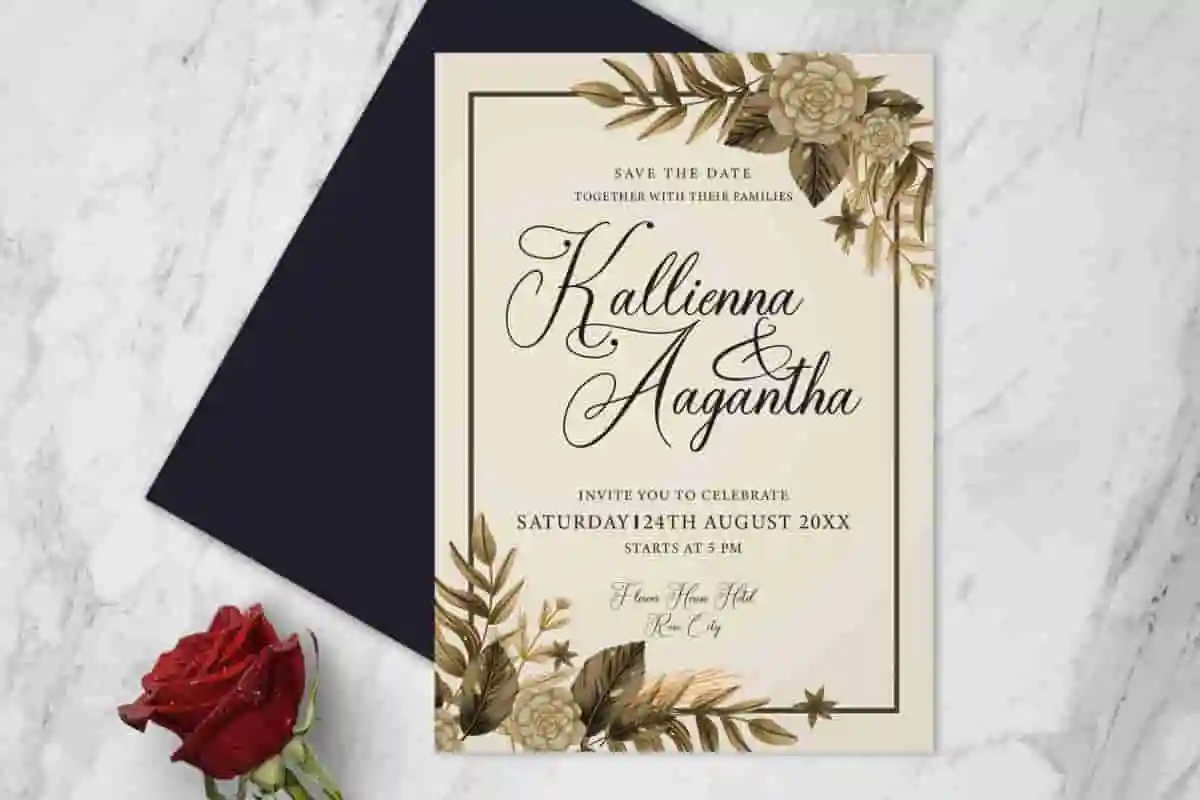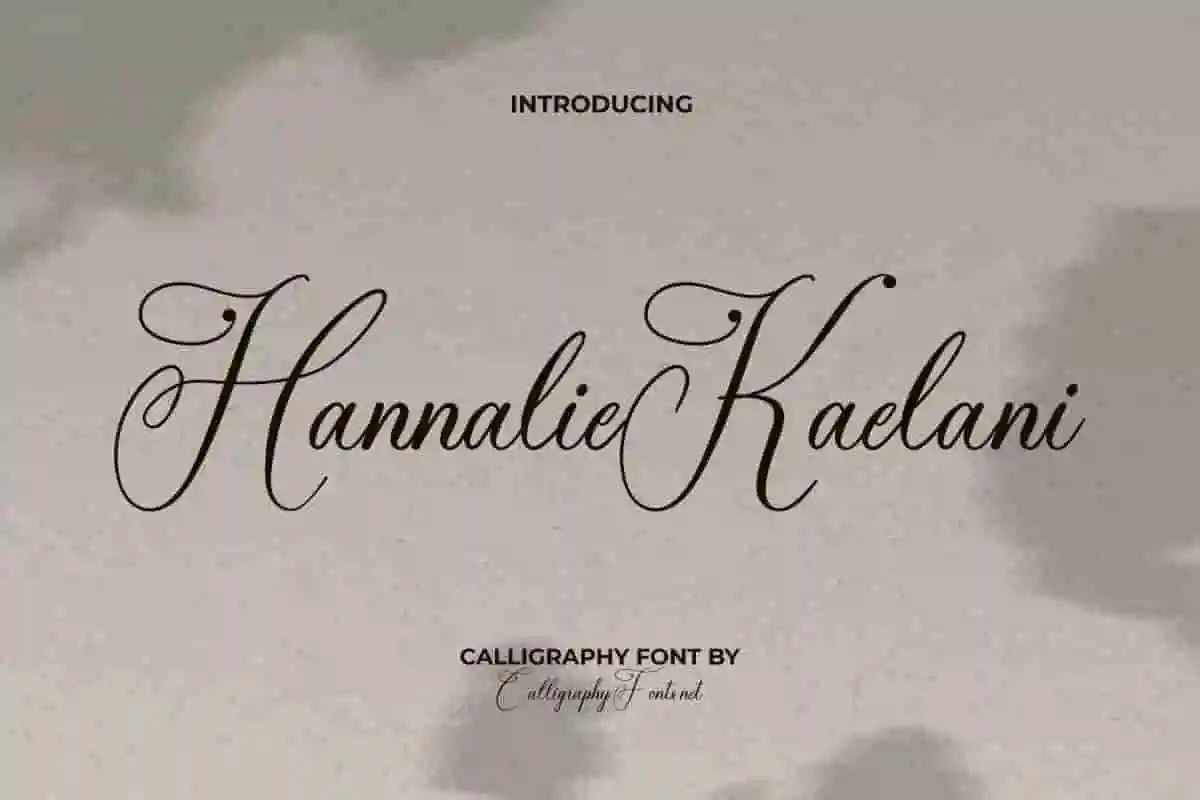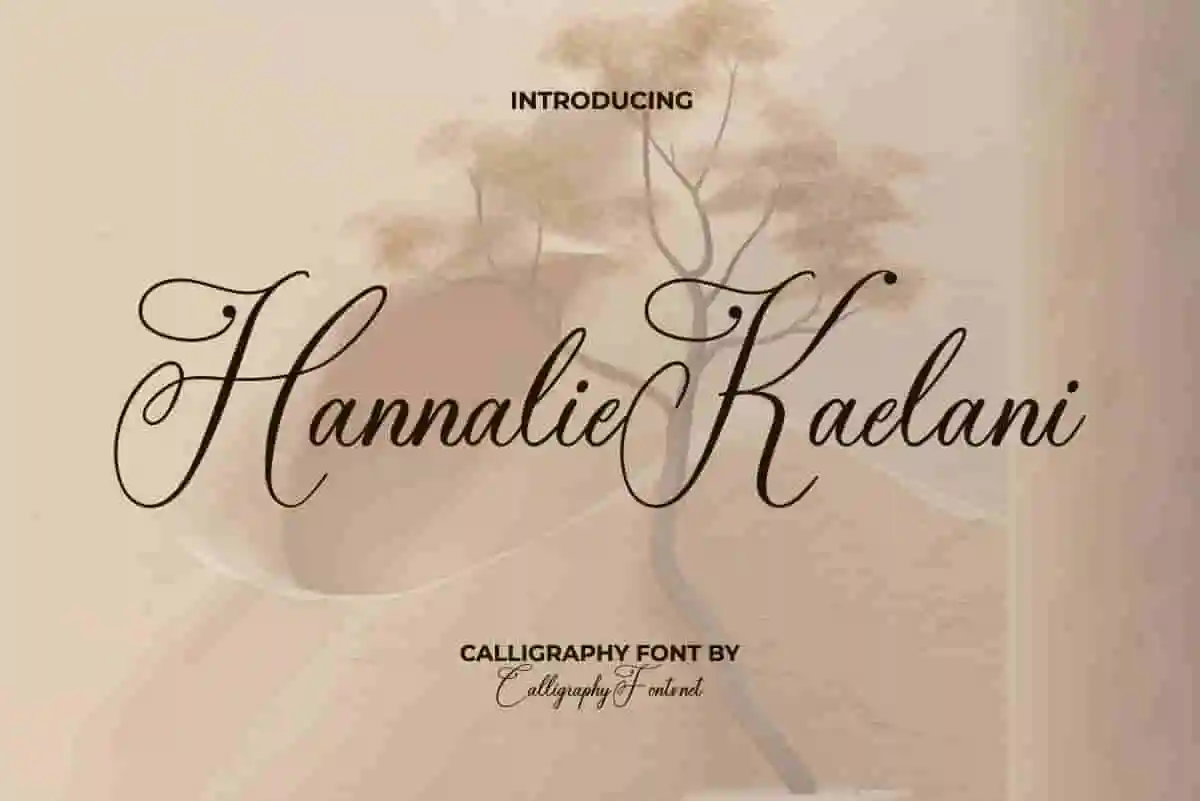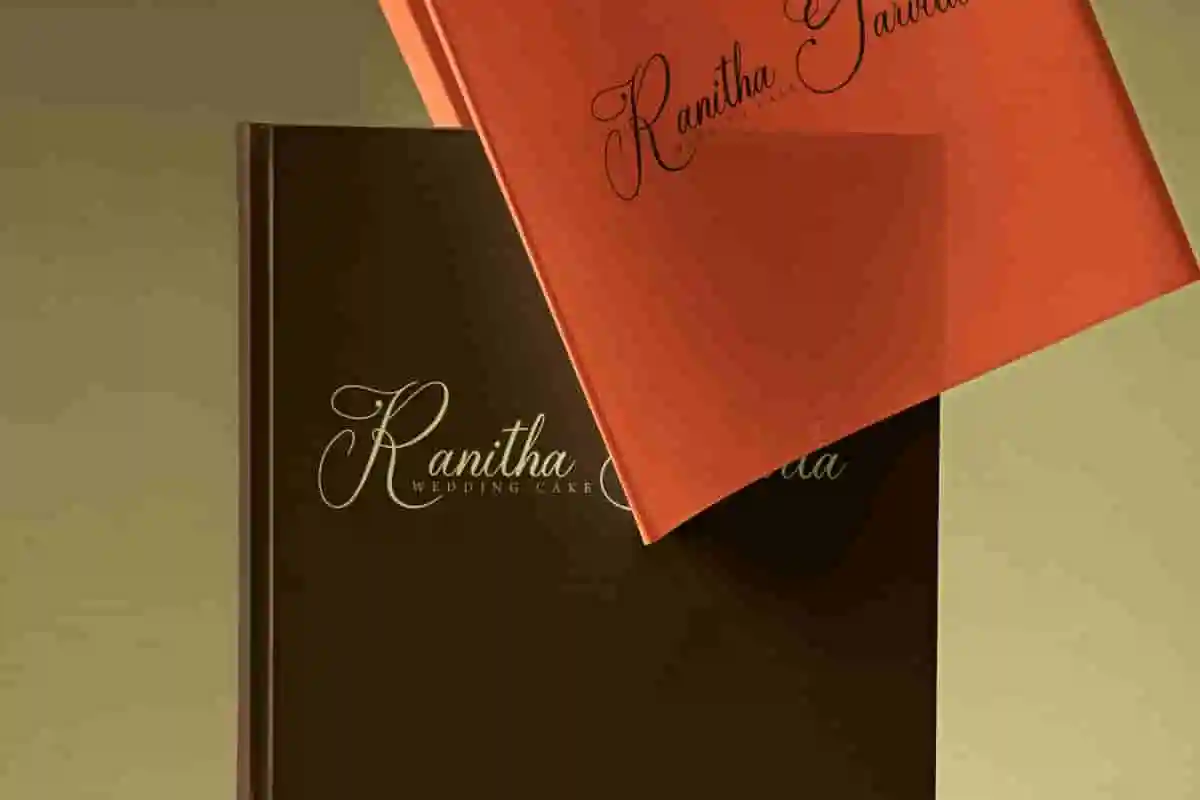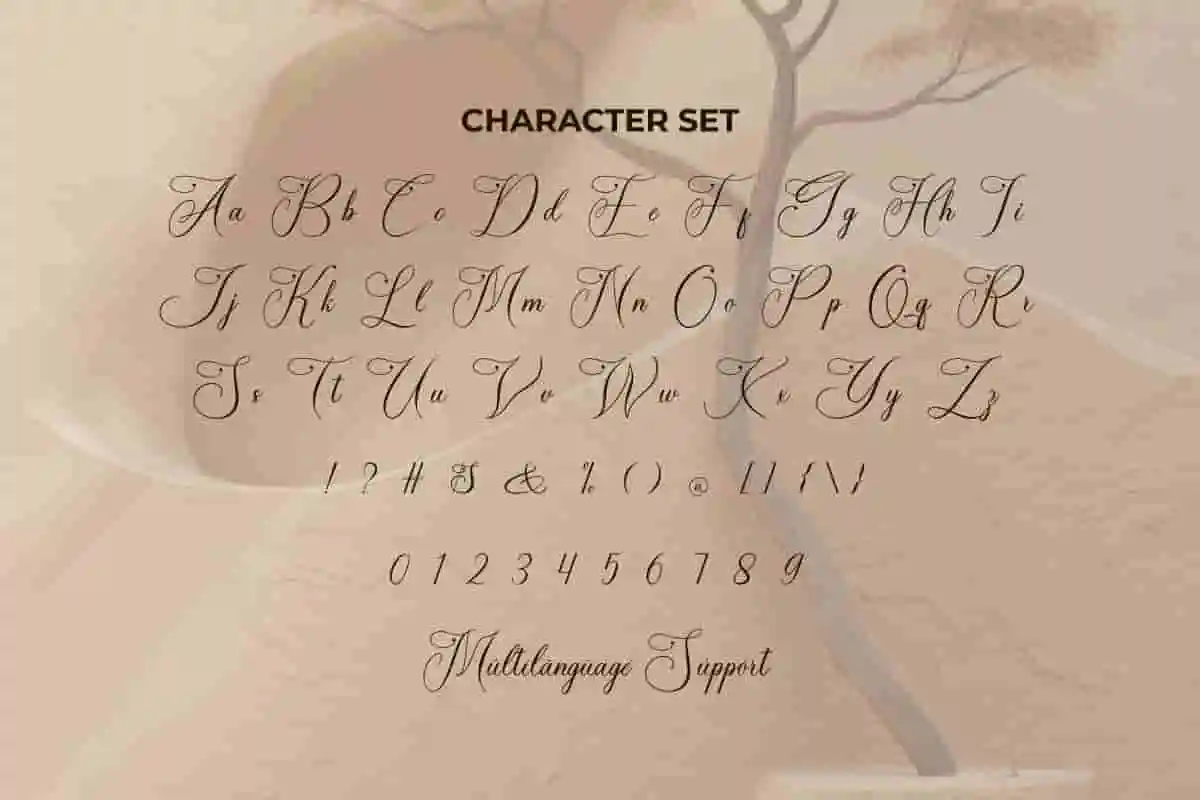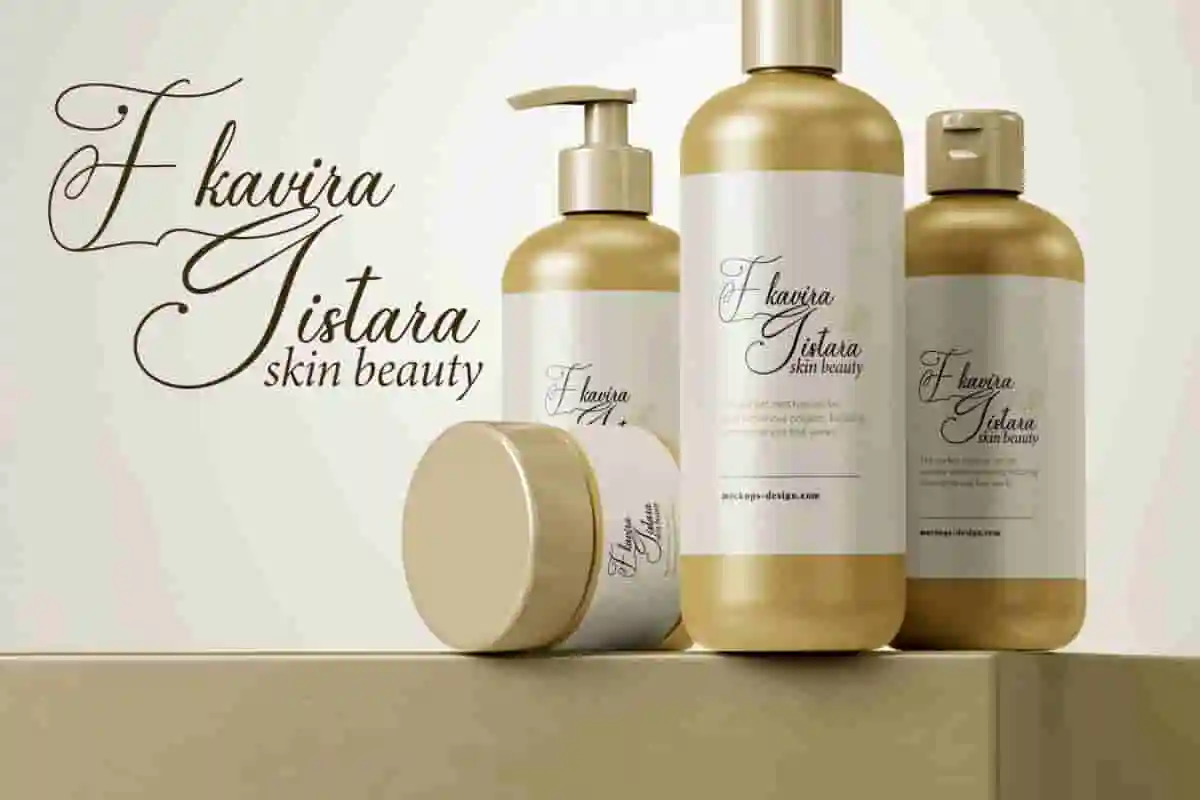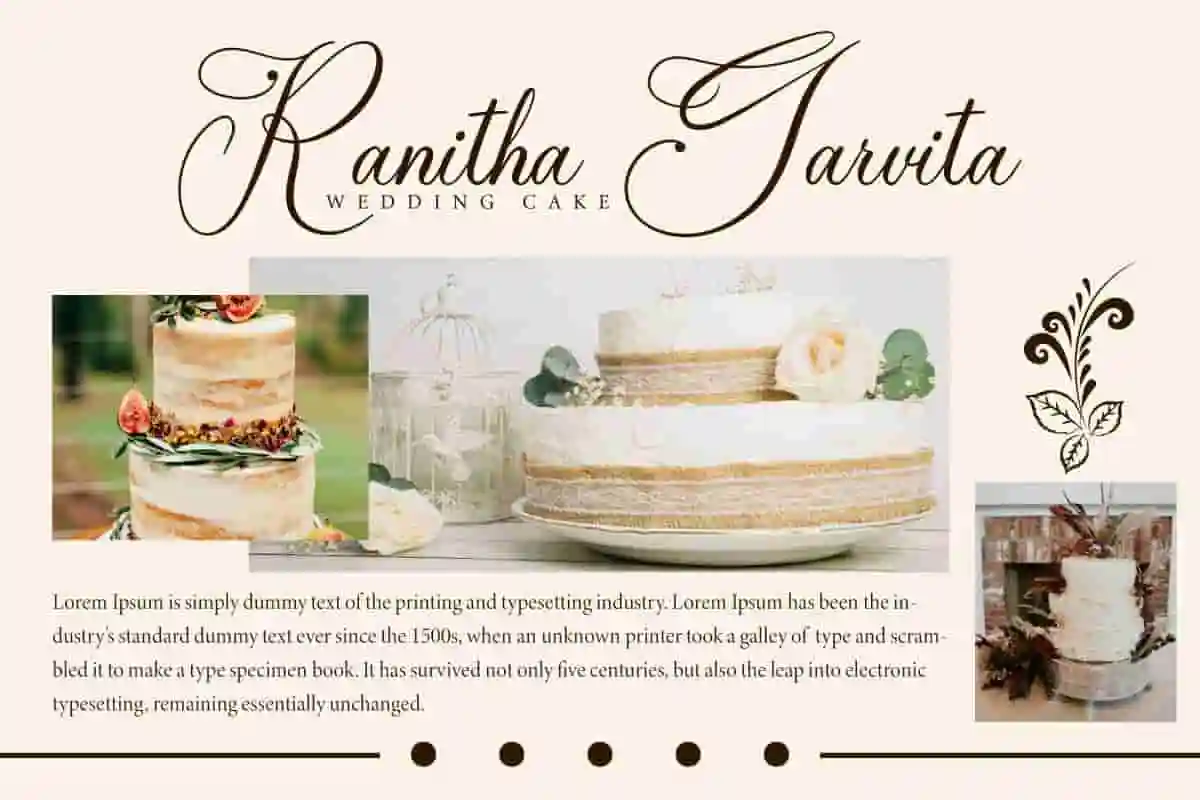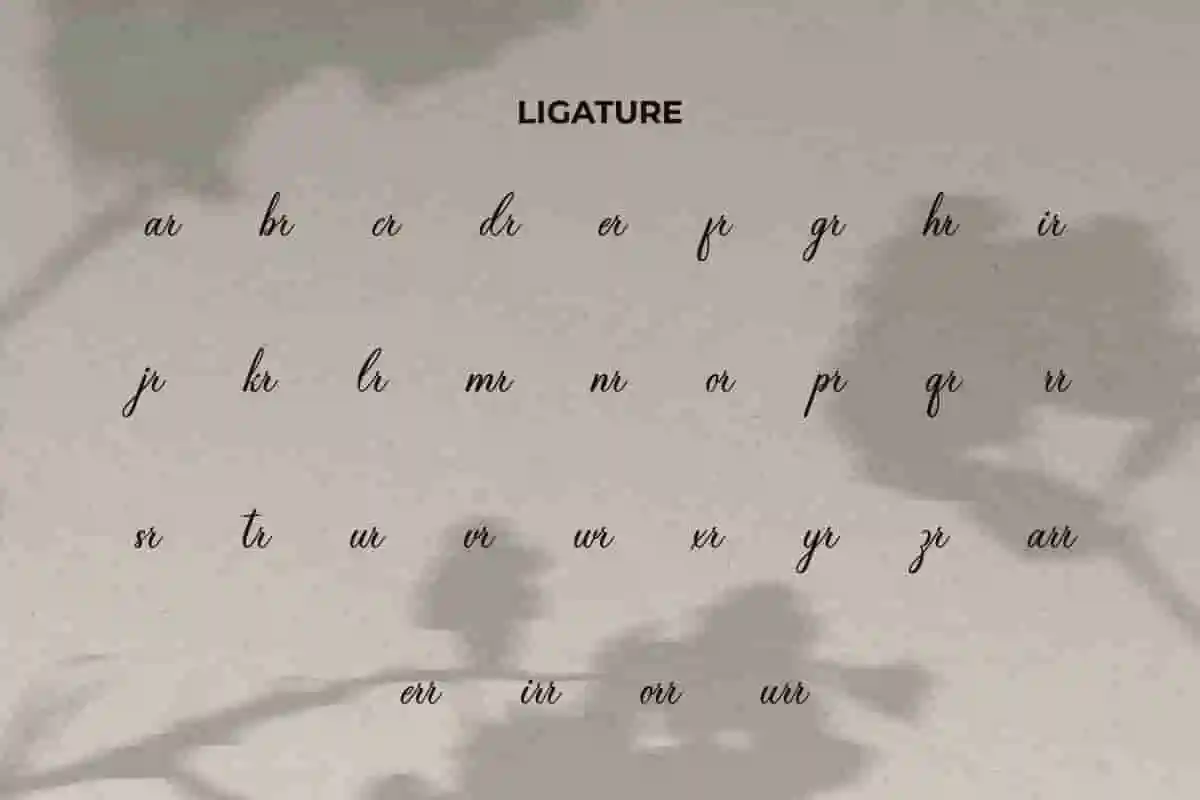
Hannalie Kaelani Font
Hannalie Kaelani Calligraphy Font is a modern calligraphy font with ligatures that are no less beautiful. Perfect for banner, beautician, card designs, craft, heading, logo, pastry brand, wedding, web, etc.
Hannalie Kaelani Font is a sophisticated calligraphy script font designed to embody the elegance and charm of a classy letter heritage. Inspired by the enduring beauty of handwritten texts found in classical literature. This font is perfect for blogs, brand logo, brochure, flyer, greeting card designs, headers, invitation, label, menu, mockup, product packaging, stationery, template, watermarks, website, title, and many more.
Bring your designs to life with Hannalie Kaelani Calligraphy Font, a beautifully handcrafted script typeface that blends sophistication with modern charm. Designed with flowing curves and graceful strokes, this font is perfect for projects that require elegance, personality, and a touch of romance.
Whether you’re working on wedding invitations, luxury branding, logos, product packaging, greeting cards, or social media content, Hannalie Kaelani Calligraphy Font adds a refined, professional look to every detail. Its natural handwritten style captures authenticity while maintaining the clarity needed for versatile use.
Every letter is carefully balanced to create harmony between artistry and readability. The smooth swashes and gentle rhythm of the strokes make this font ideal for designs that aim to feel personal, intimate, and stylish. From bridal stationery to boutique branding, Hannalie Kaelani adapts seamlessly to both print and digital platforms.
Typography is more than design—it’s emotion, storytelling, and identity. Hannalie Kaelani Calligraphy Font allows you to express those emotions with timeless beauty, ensuring that your projects stand out in the most elegant way possible.
Hannalie Kaelani Calligraphy Font is a neat italic font that has a beautiful look of fine details and flowing curves creating a beautiful blend. It will play a dual role in both modern and vintage themes. This font helps to enhance your creative projects with its truly captivating aesthetic. This font is perfect for artist, bakery, cafes, cosmetic, dessert chef, event organizer, gift & souvenir, graphic design, handicraft, restaurant, skincare, photography, printing, publishing, wedding, and many more.
Hannalie Kaelani Calligraphy Font comes with a complete set of Uppercase and Lowercase Basic Characters, Number, a large range of Punctuation, Symbol and Ligature. It is supported with multilingual characters and ready to use both on Windows machine or Mac with simple installations. It’s tested to work well in the Adobe Apps (Illustrator, Adobe InDesign, Adobe Photoshop) CorelDraw, and others. PUA Encode Characters means you can access all the characters easily – Fully accessible without additional design software.